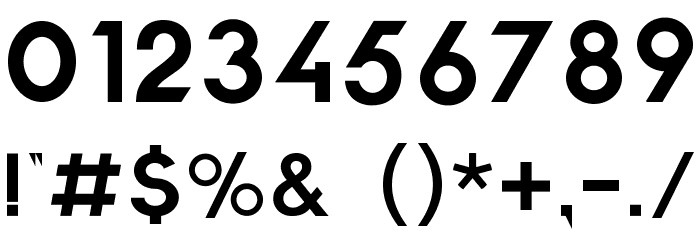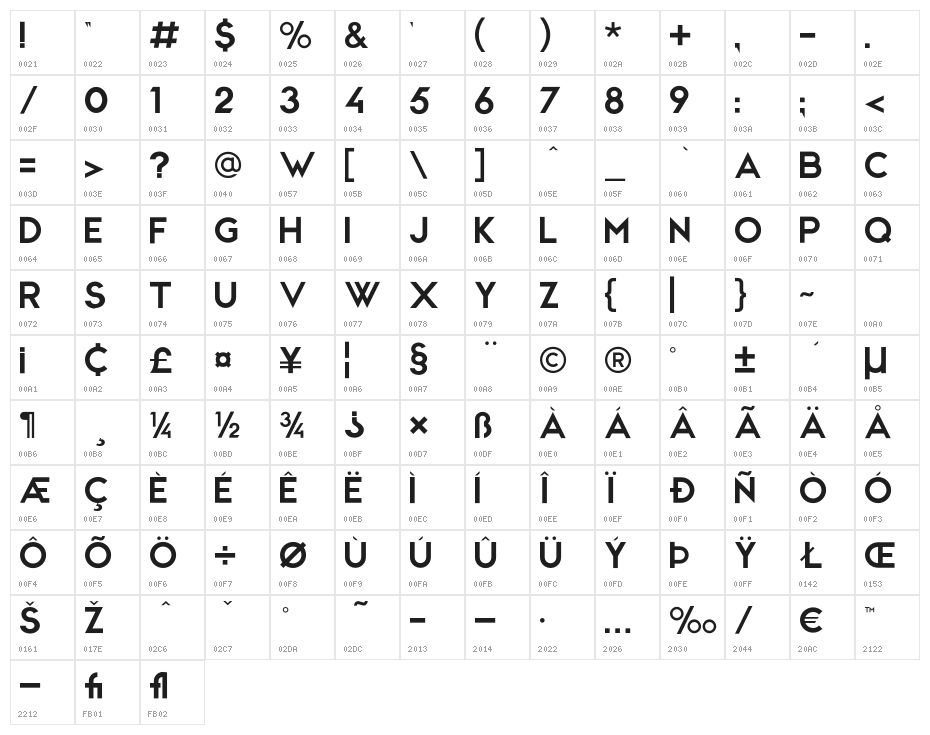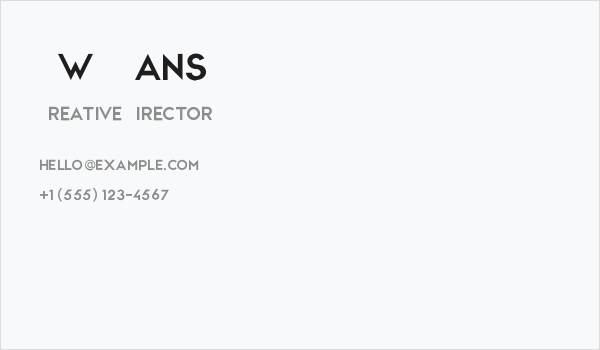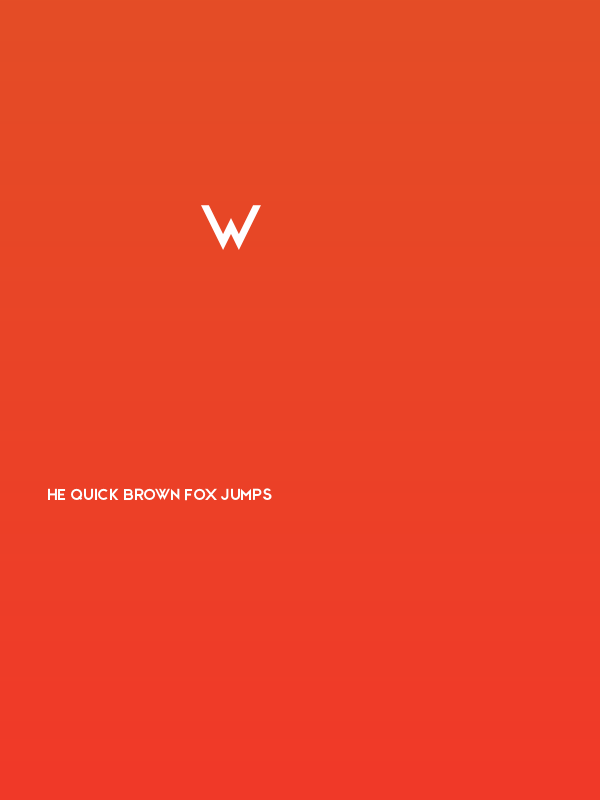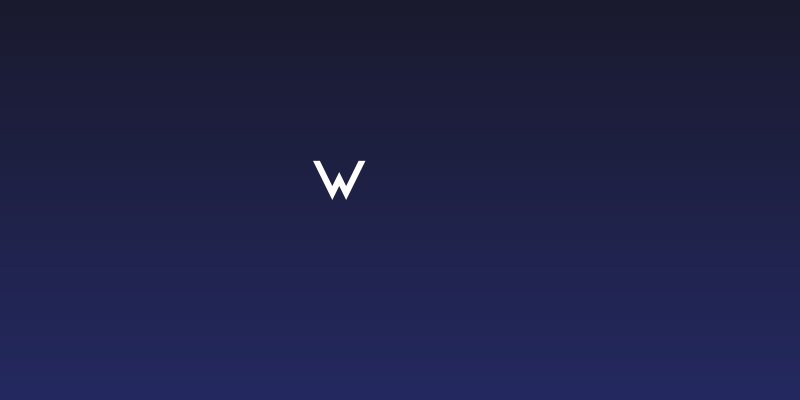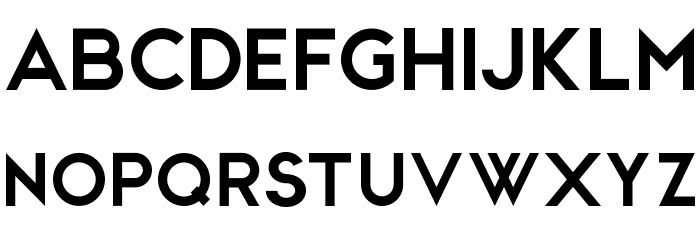
CWGSans Font
CWGSans Description
This font features a clean and modern sans-serif design with uniform stroke widths and a geometric structure. The characters are bold and well-defined, making them highly legible. The uppercase letters are consistent in height, while the lowercase letters maintain a balanced proportion. The numerals are straightforward and align well with the overall style. Special characters are distinct and integrate seamlessly with the rest of the character set. The font's simplicity and clarity make it versatile for various design applications.
| Proposed Projects | Ideal for branding, advertising, web design, and editorial projects where clarity and modernity are essential. |